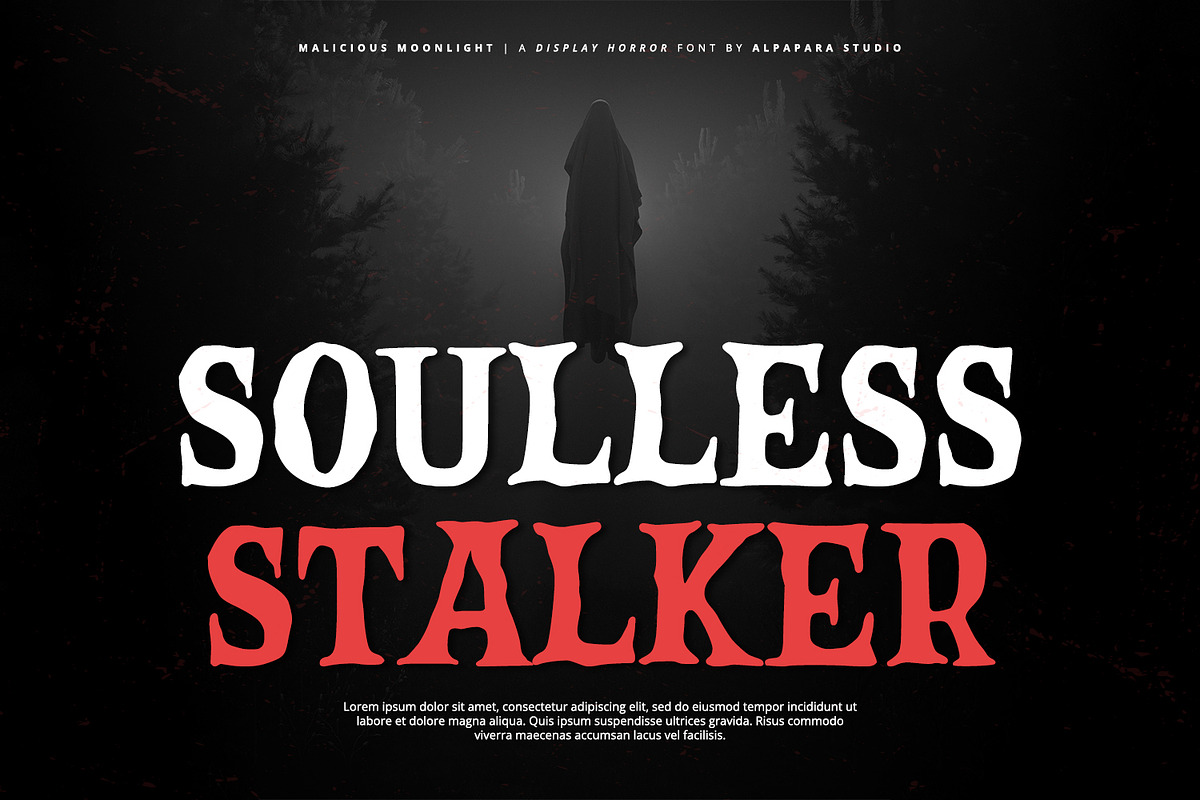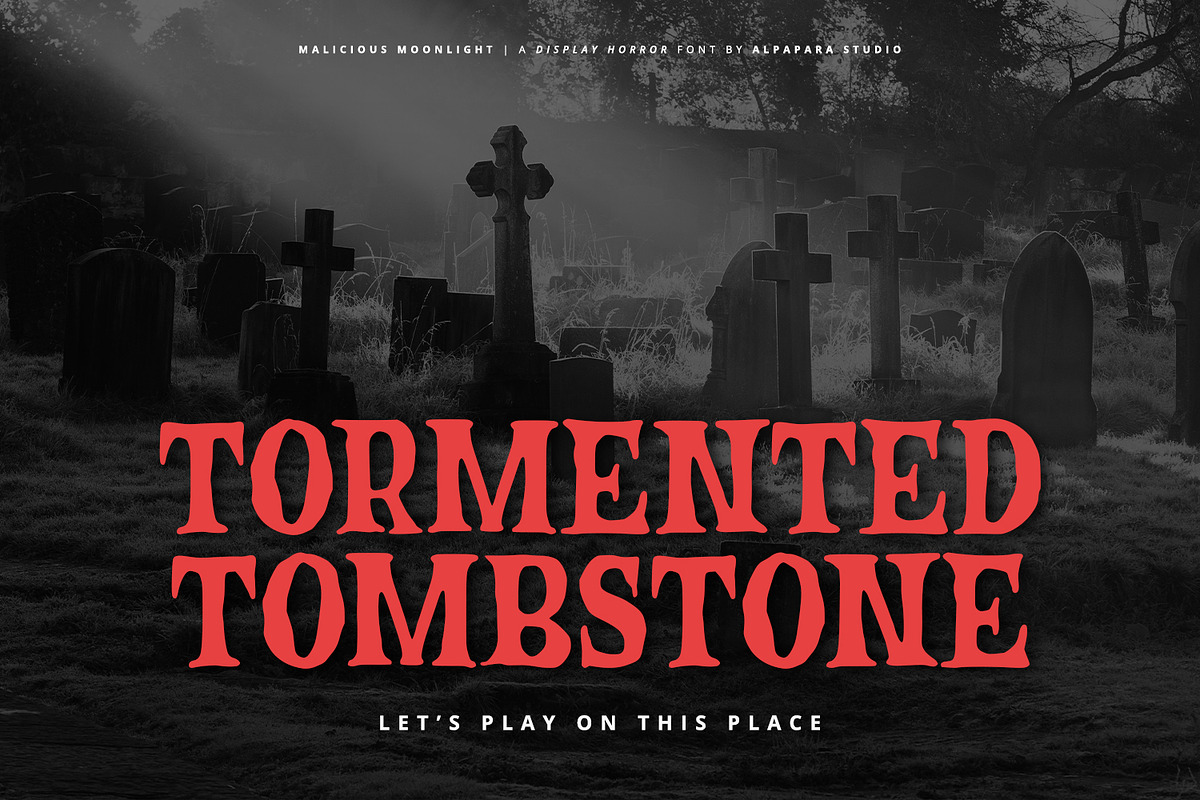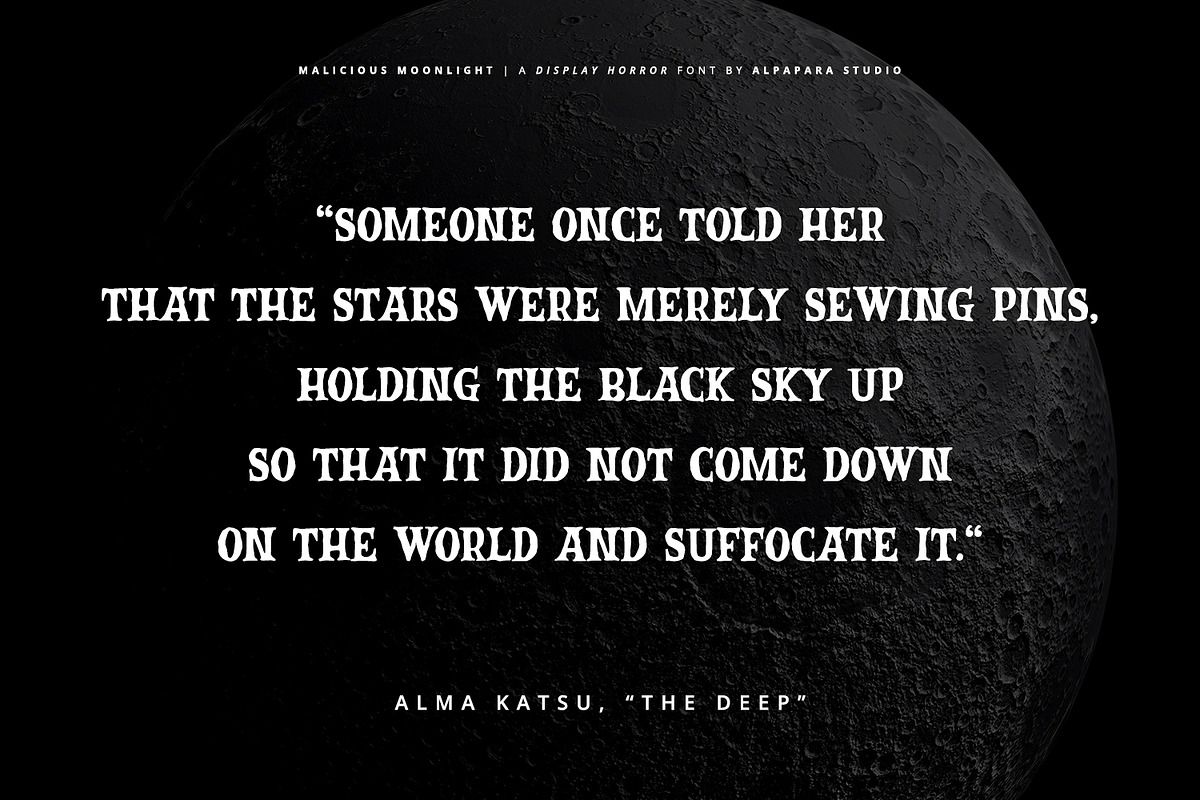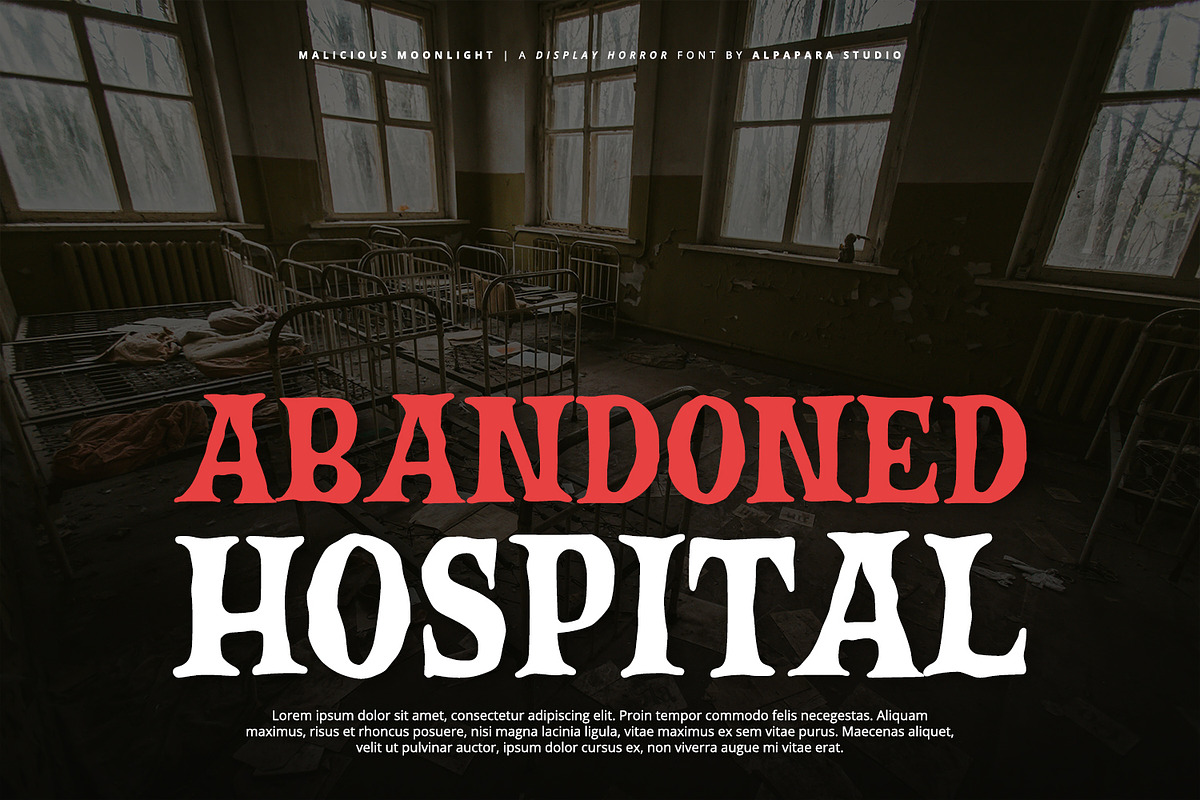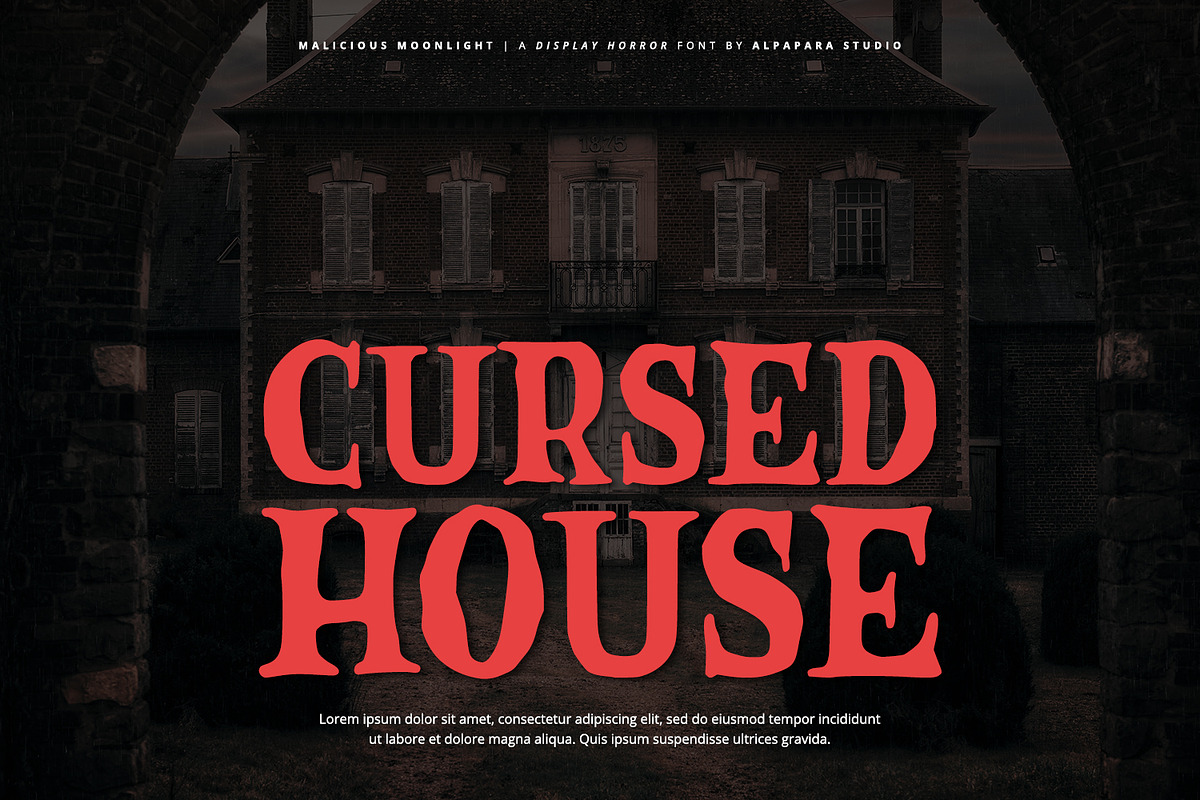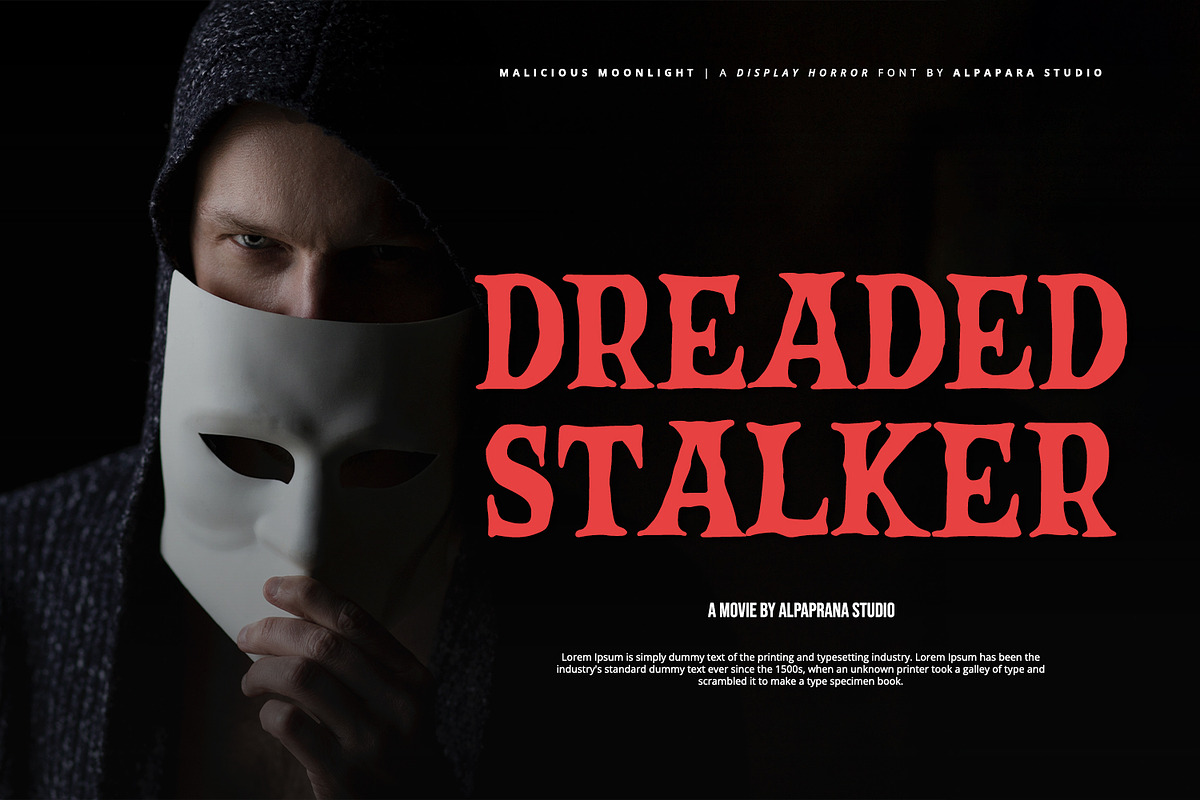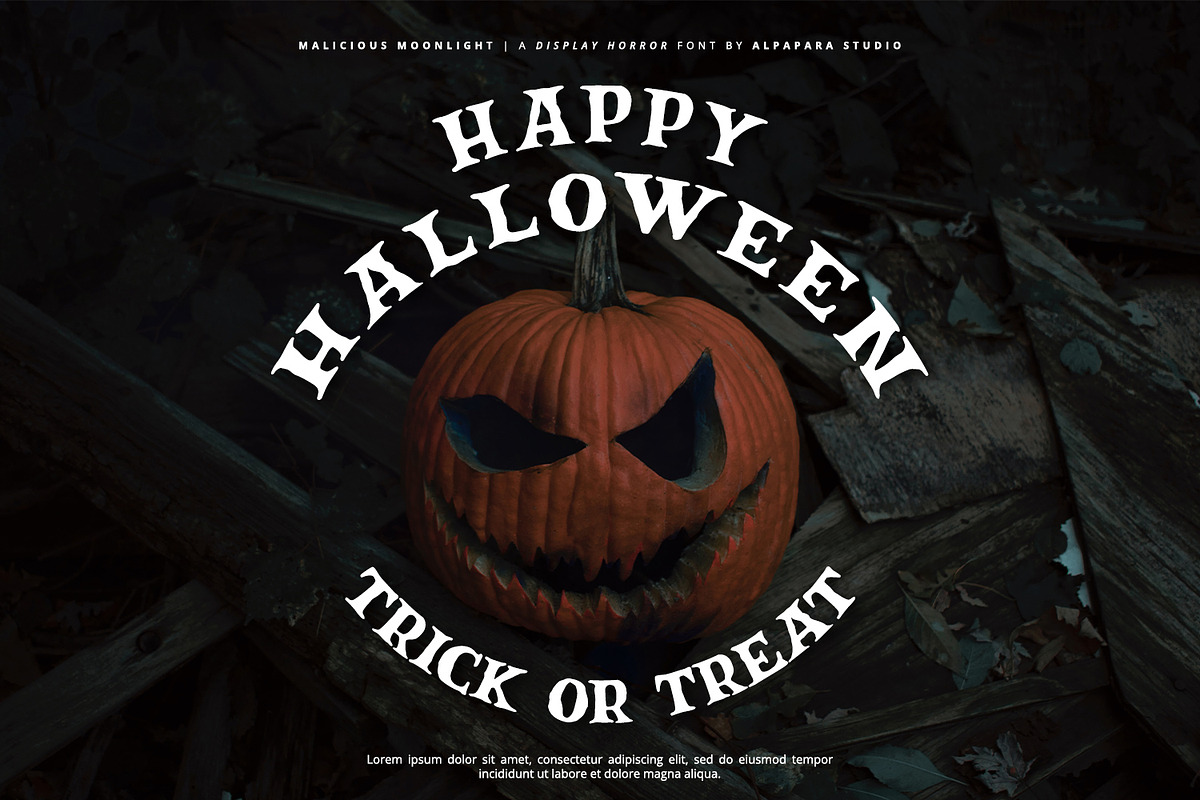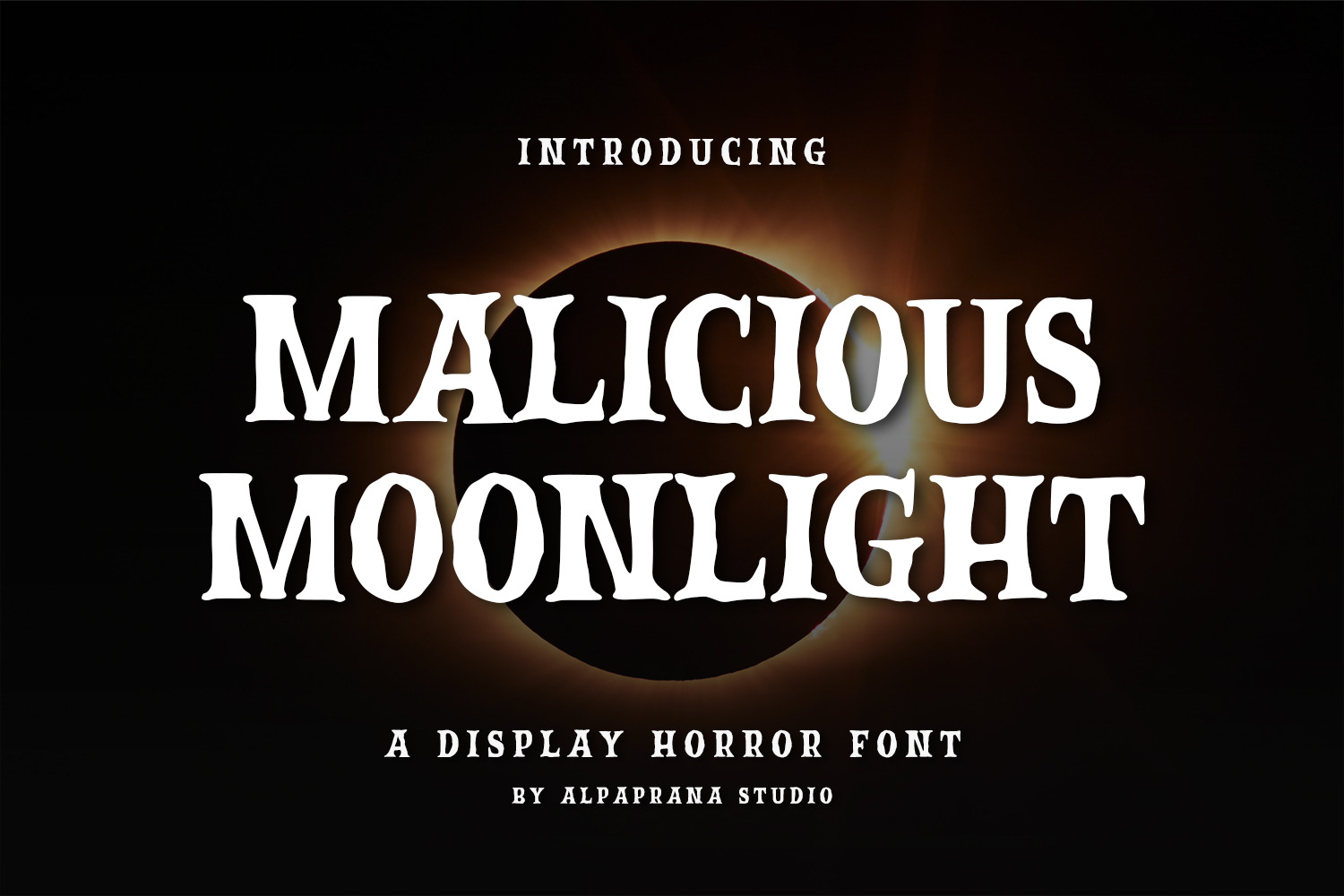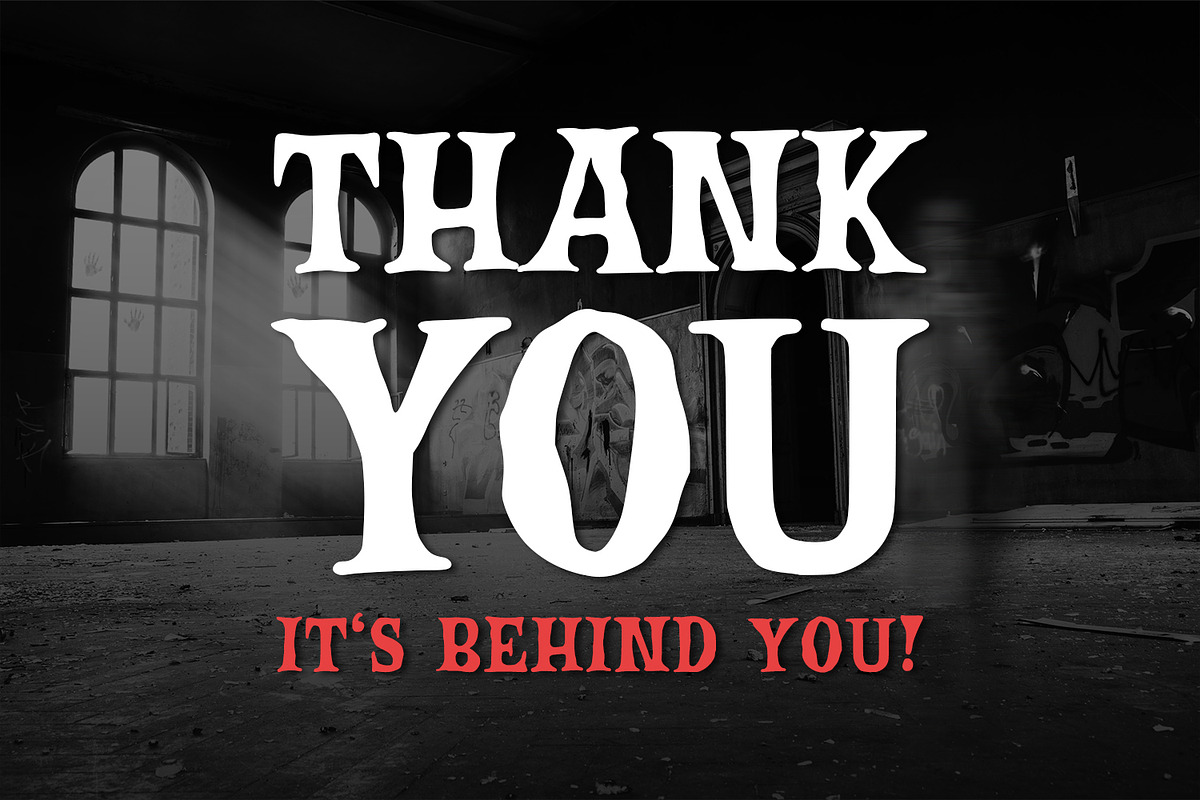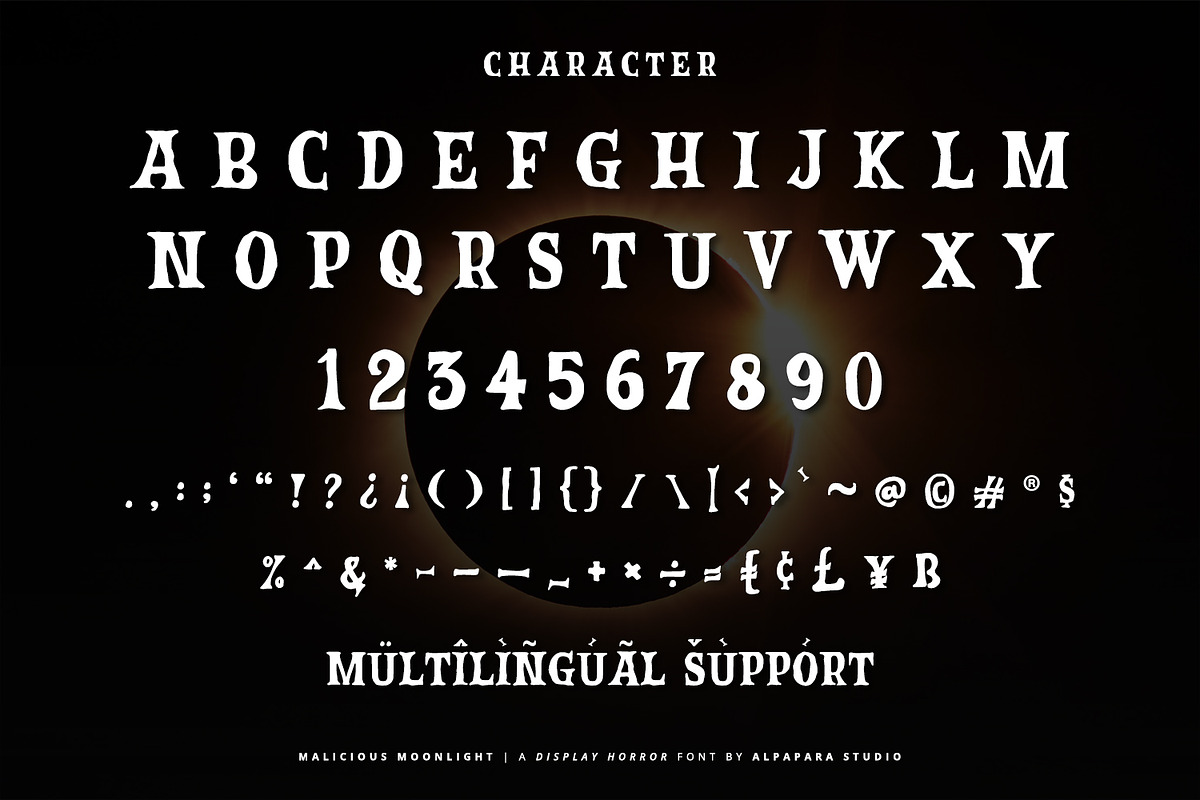
Malicious Moonlight - Display Font
Malicious Moonlight is a stunning display font with modern and horror feels. It will be perfectly used for Branding, Logo Design, Lettering, Logotype, Clothing, Poster, magazine, packaging, posters, shopping bags, t-shirts, book covers, photography, special events and other design project.